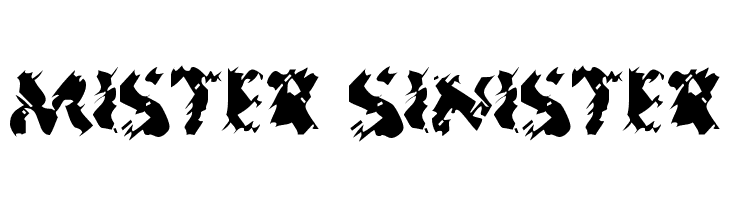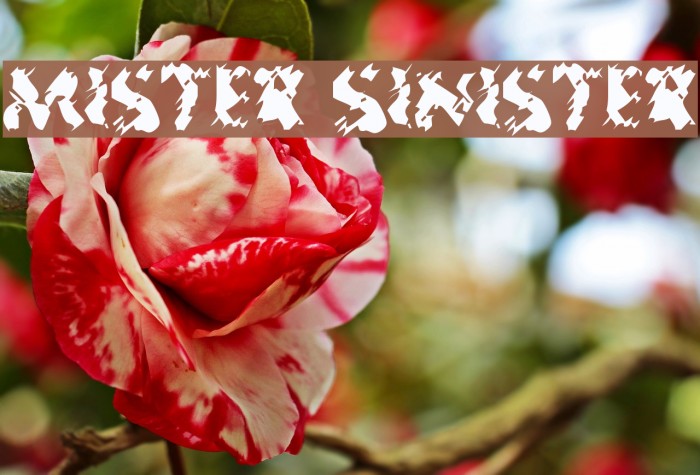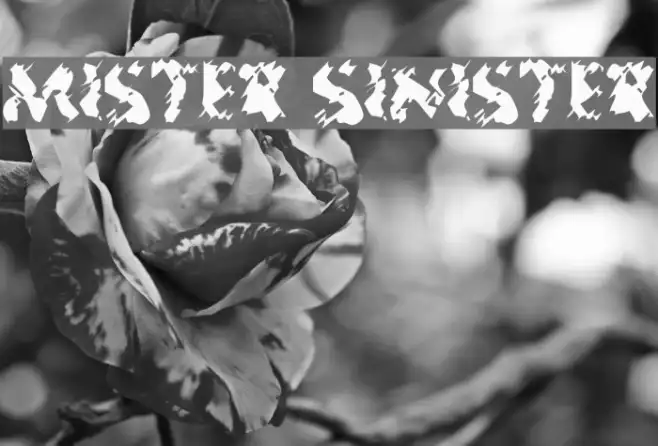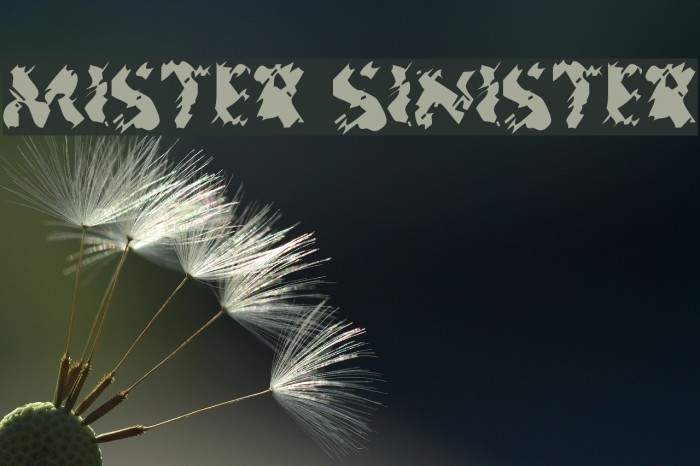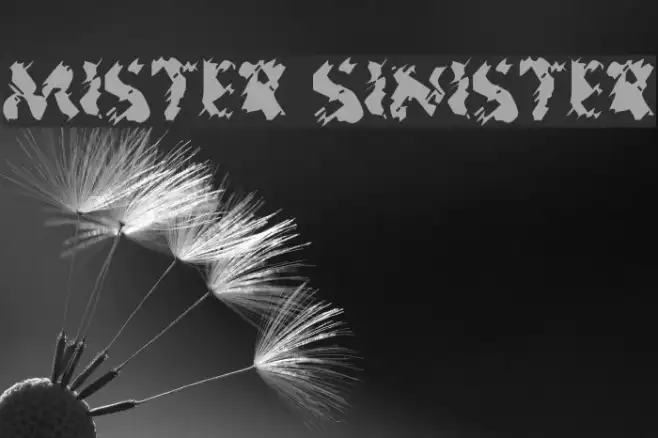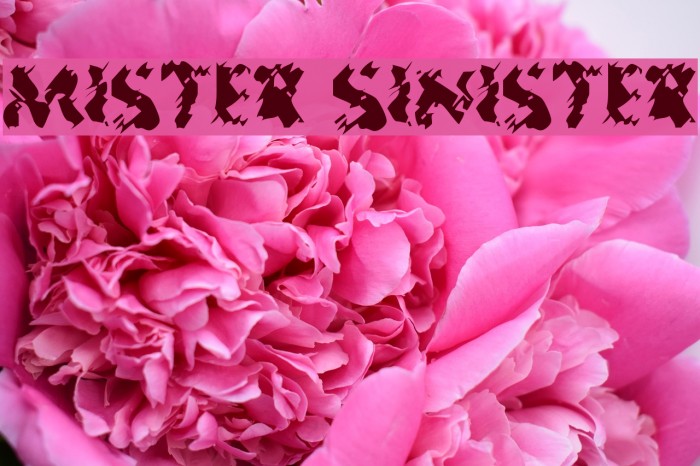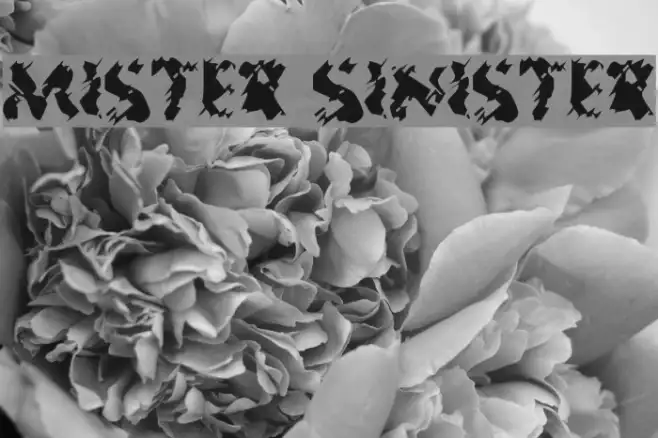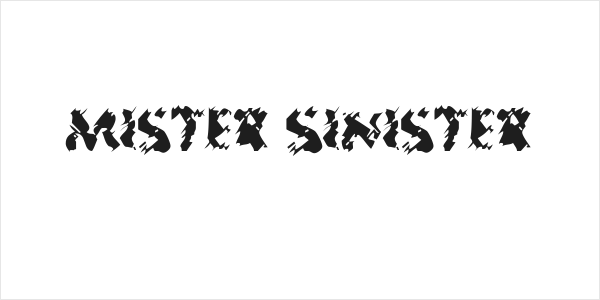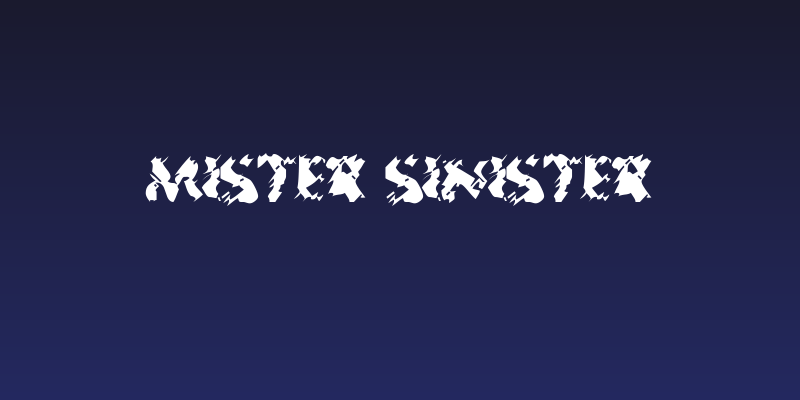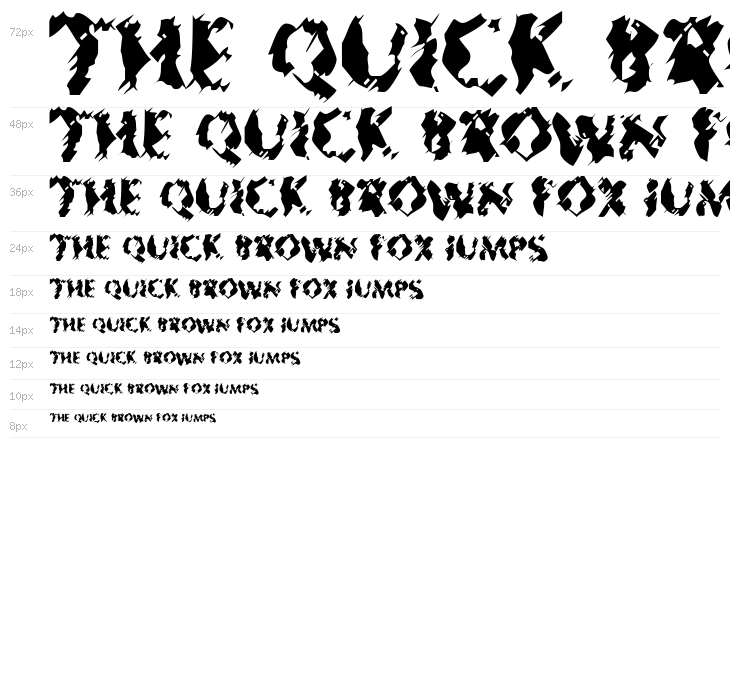
Mister Sinister Font
Mister Sinister Description
This font features a bold and edgy design with sharp, jagged edges that give it a chaotic and rebellious appearance. The letters are heavily stylized, with irregular shapes and a distressed texture that suggests a sense of movement and energy. The uppercase and lowercase letters maintain a consistent style, creating a cohesive look across the alphabet. The font lacks traditional serifs, opting instead for a more modern and aggressive aesthetic. Its unique design makes it stand out, suitable for projects that require a strong visual impact.
| Overall Style | Modern, Aggressive |
| Proposed Projects | Ideal for music album covers, event posters, or branding for edgy or alternative products. |